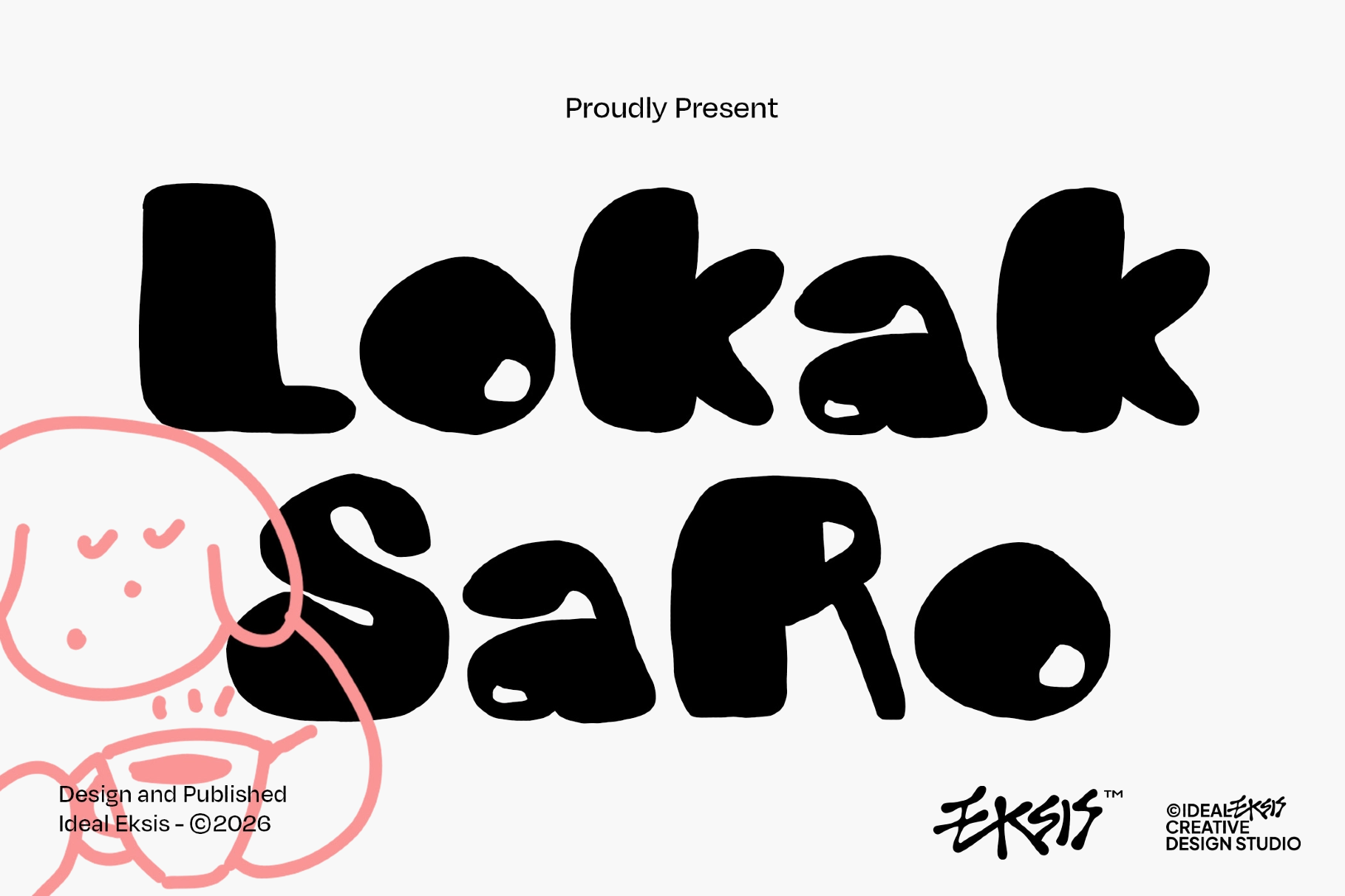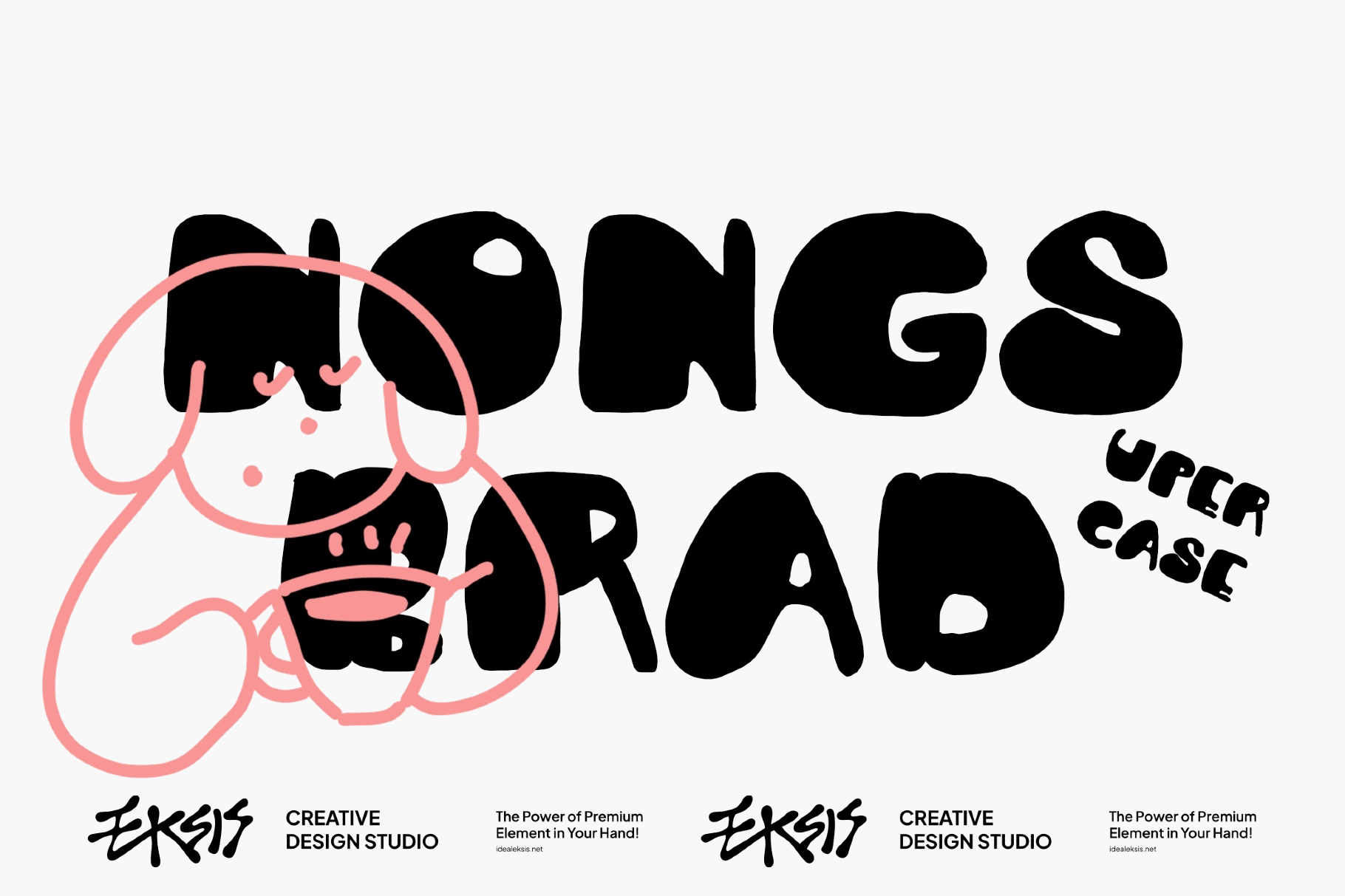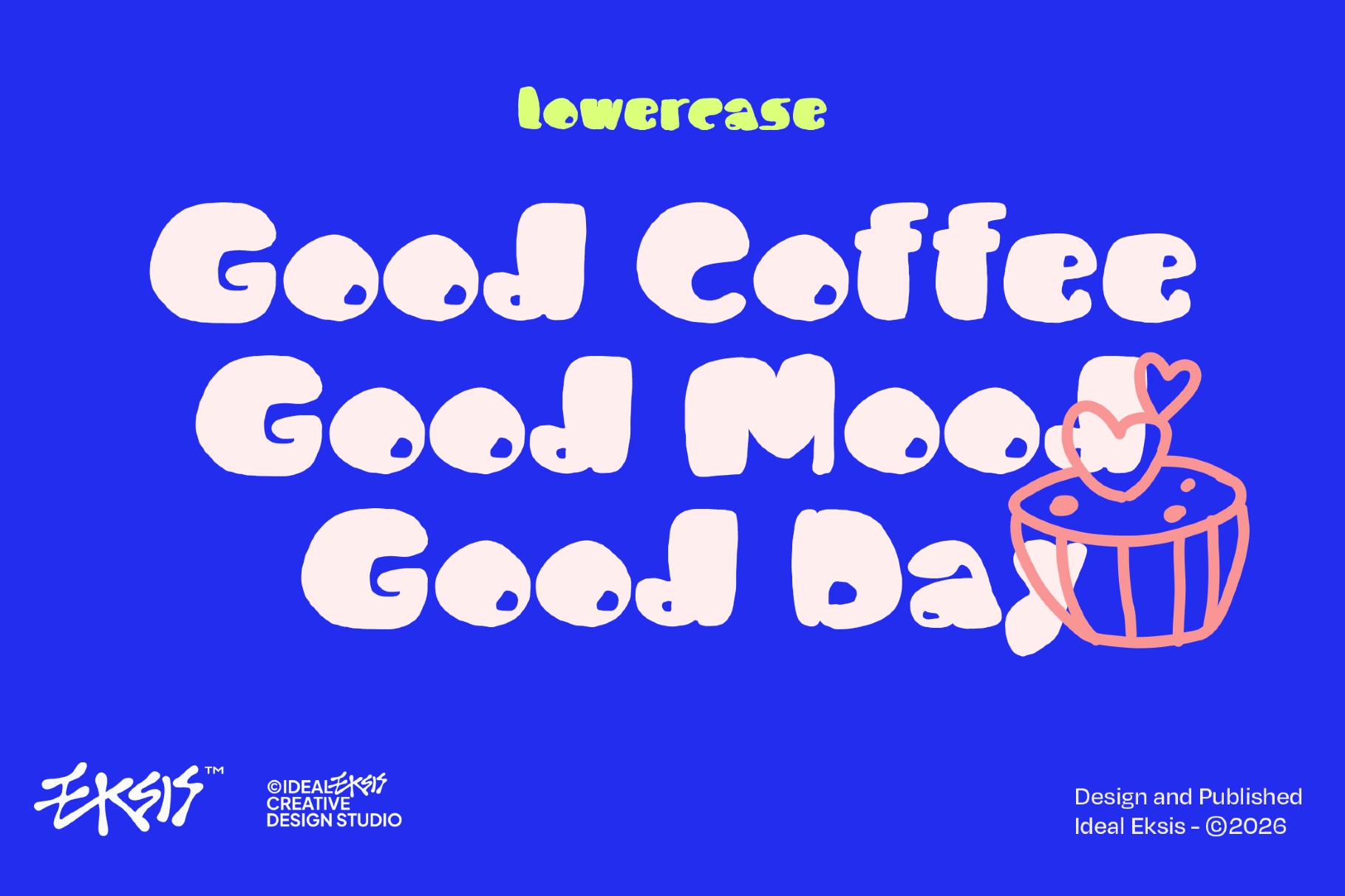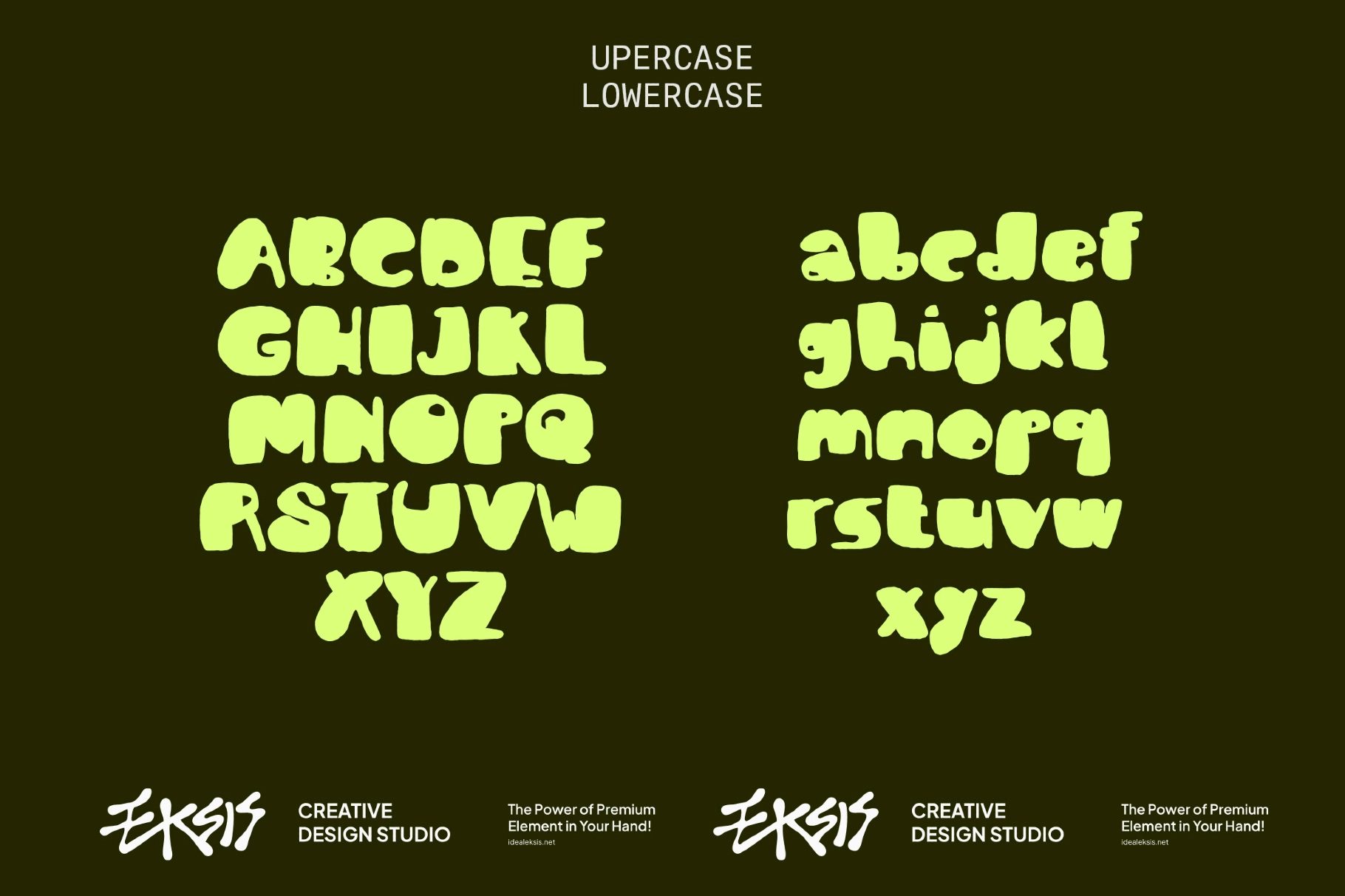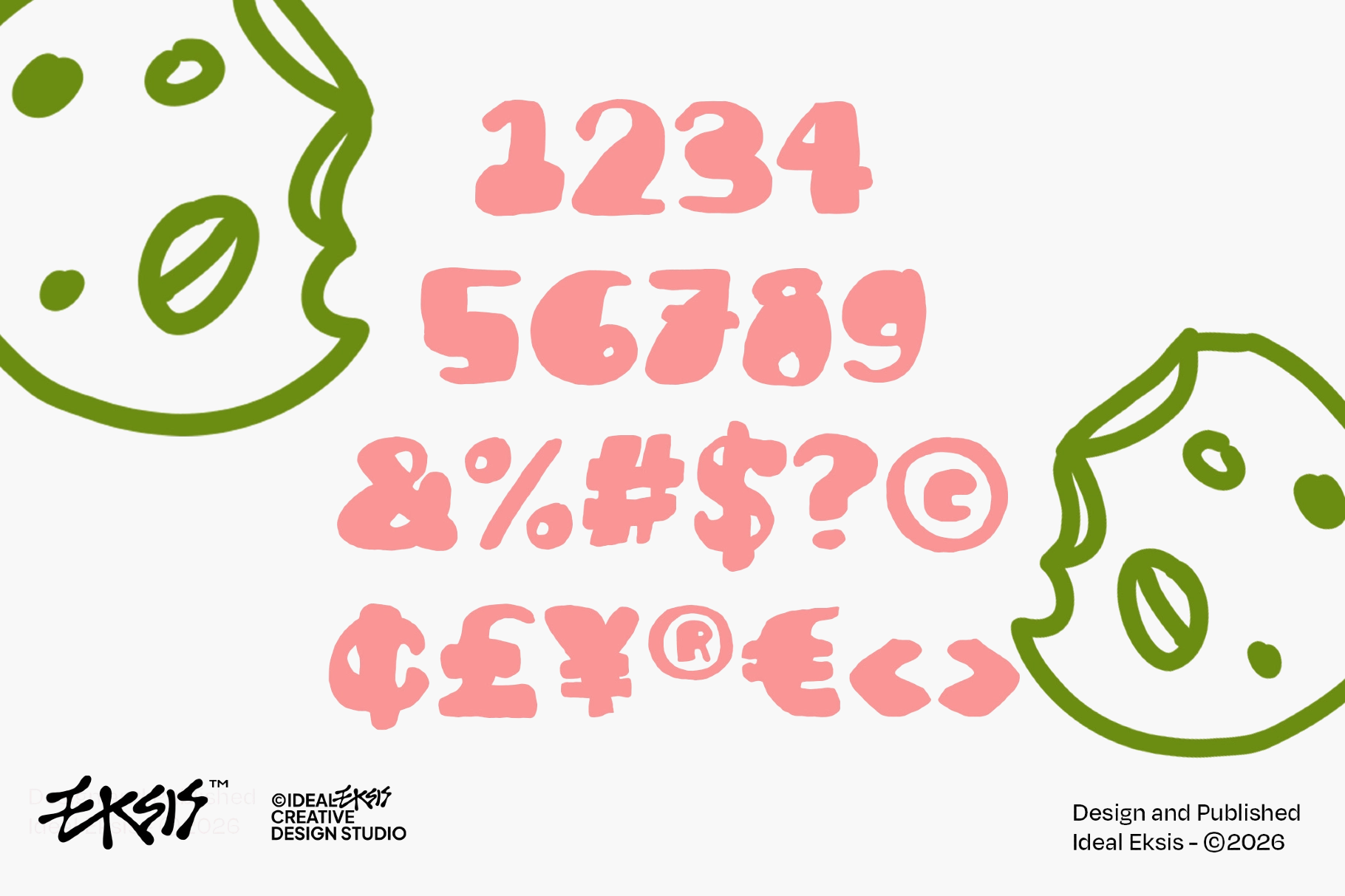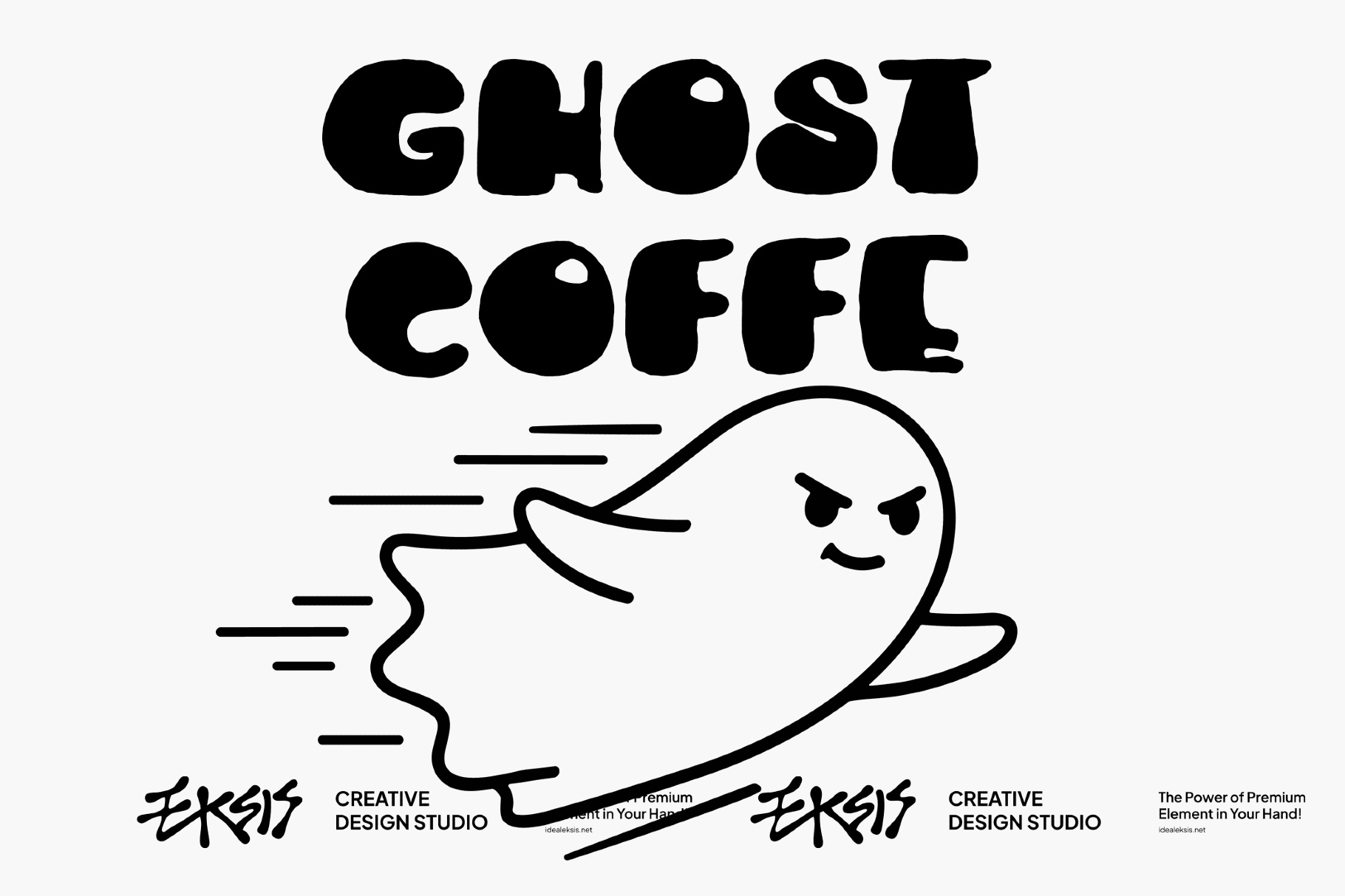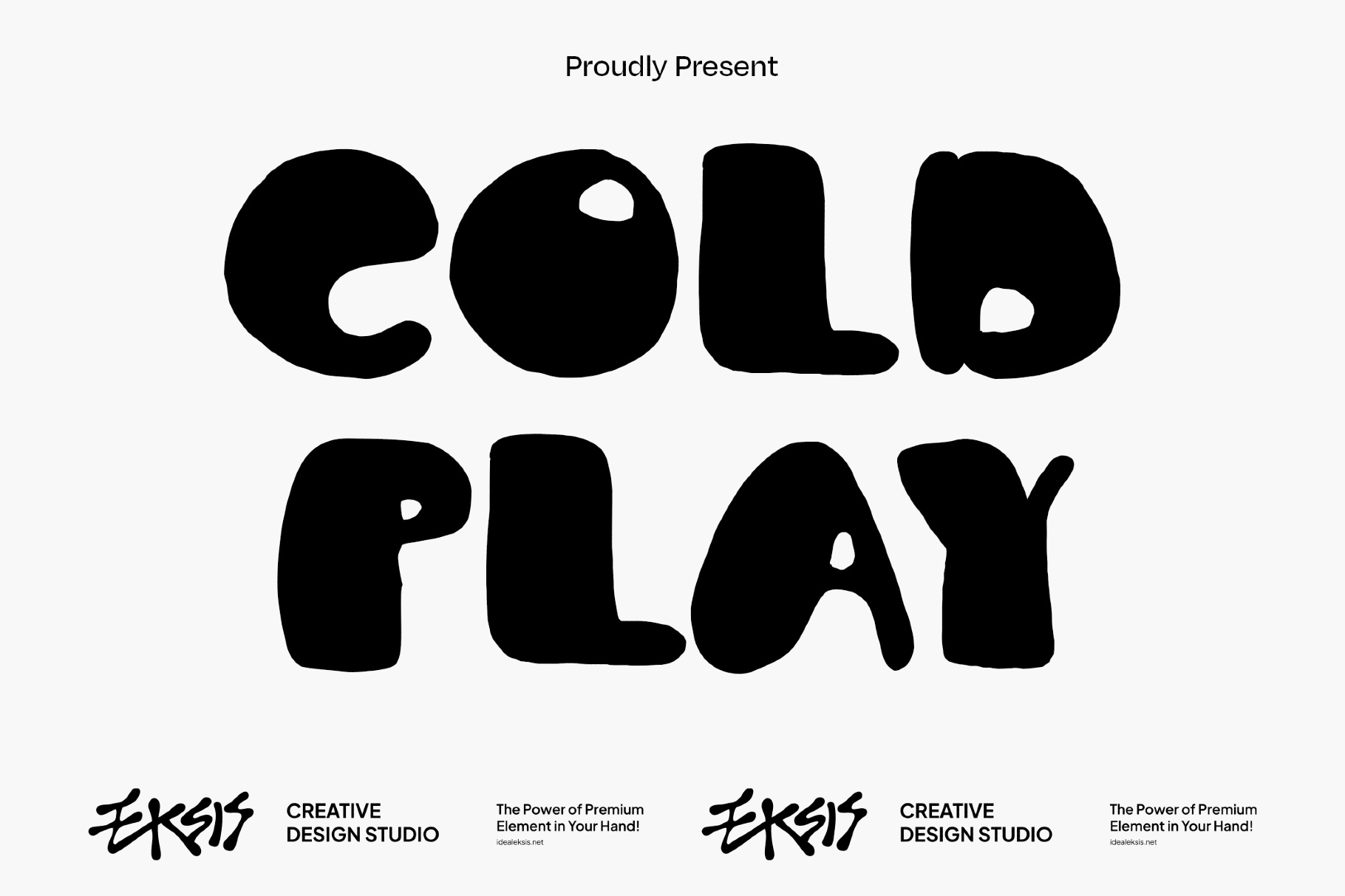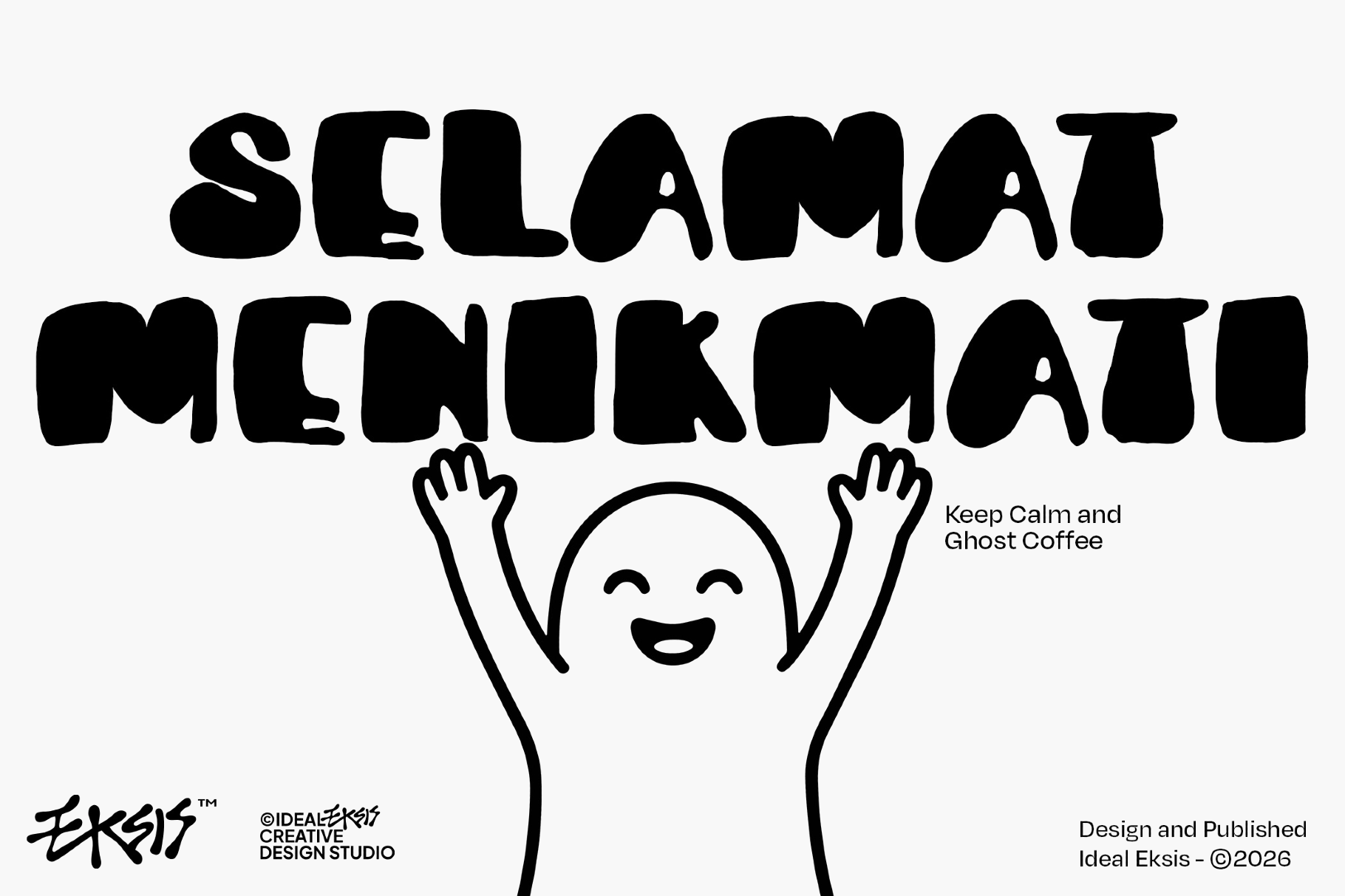
Lokak Saro - Playful Fun Bubble Font
Lokak Saro is an ultra-heavy bubble font where strokes swell so wide they nearly swallow the counters, giving each letter a soft, inflated shape. The outlines keep a loose, hand-drawn wobble instead of a clean vector edge, so no two curves match exactly and the whole set reads closer to a doodled mascot logo than a display grotesk. Letters run thick enough to merge at the joints, which keeps headlines chunky and legible even at poster scale.
Lokak Saro works best in short, punchy settings where the roundness can carry the whole layout. Use it for bakery branding, café signage, coffee shop logos, donut shop packaging, food labels, restaurant menus, kitchen-themed posters, social media food promos, and recipe graphics.